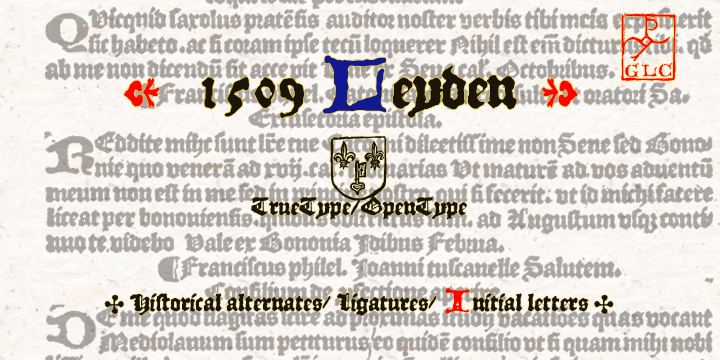1509 Leyden
This ancient font as per its name was first used in 1509 in a Dutch town then known as Leyden for printing Francesco Filfelo’s “Breviores elegantioresque epistolae” by Jan Seversz. 1509 Leyden had covered almost one complete set of small lombardic initials, the complete set of lower case characters except w, Eth , etc. , … Read more
1510 Nancy
Nancy was inspired from the printing of Symphorien Champion’s book named “Recueil ou croniques des hystoires des royaulmes d’Austrasie ou France orientale[…]” in around 1510 at Nancy town of France. Basically focused on initials letters, it has 3 set of families with only 1 complete and clear. Reconstruction by GLC was bit difficult as some … Read more
Paris Verand
This French inspired font which was used in 1514 is highly decorative and GLC has updated the complete set.1514 Paris Verand which was installed while printing “Triumphus translatez de langage Tuscan en François” by the printer Barthélémy Verand. The lacking letters have been added by the publisher and now they provide a complete set for … Read more
1512 Initials
1512 Initials is a superb collection which is highly original in the area of initials. It contained roman set with white on black and the other of black and white, which will give the printer options of using as per audience and context. Inspired by Italian, it also contained fleurons and decorative elements. Finding its … Read more
1495 Bastarde Lyon
Large number of letters is there in this font though the ligatures and special characters remain few. The letter “long S” is used in its primitive form. This font is used to decorate many web-site, greeting cards , and posters but a file is required to read them on keyboard. The most amazing thing about … Read more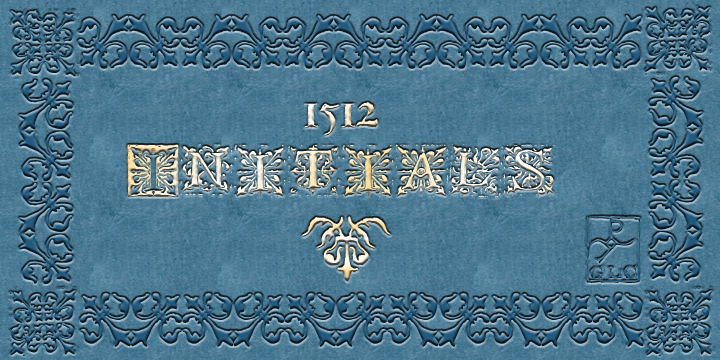